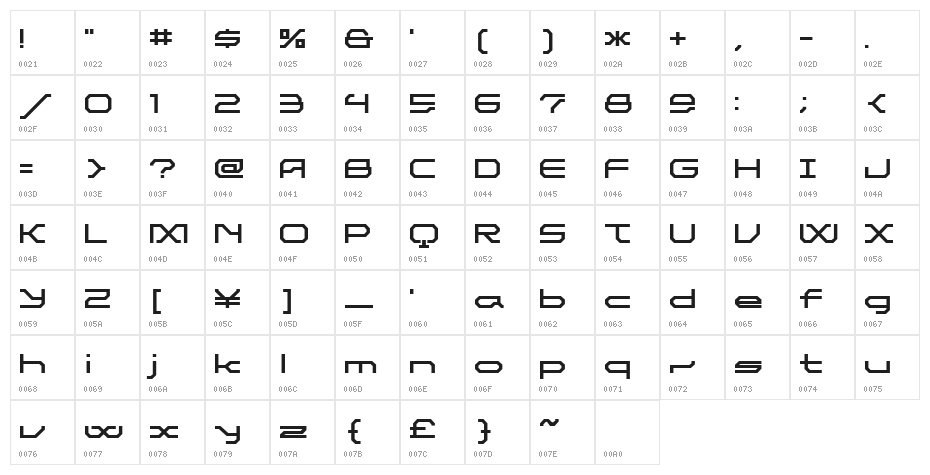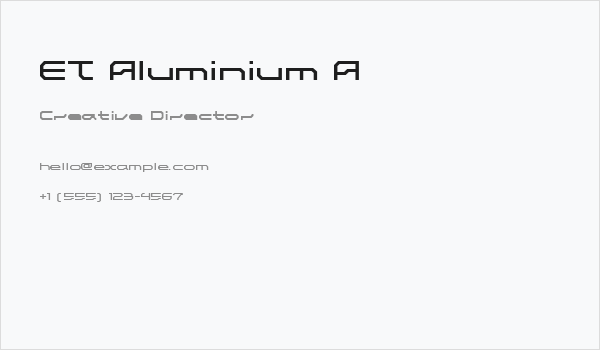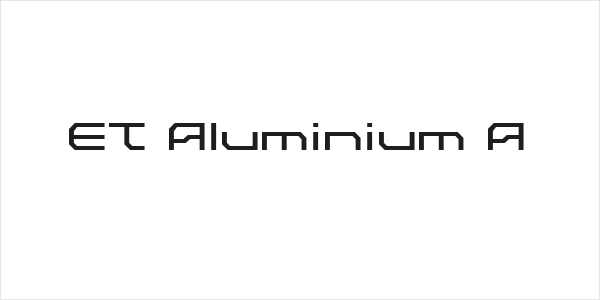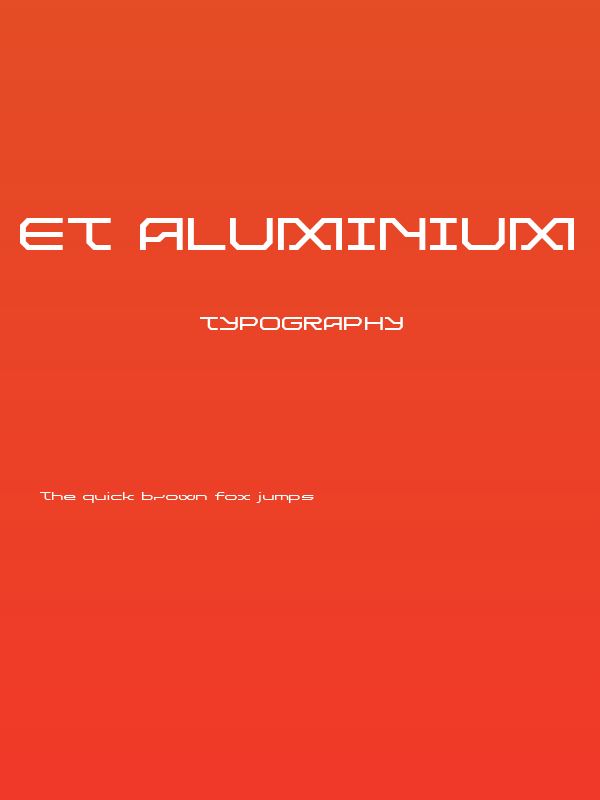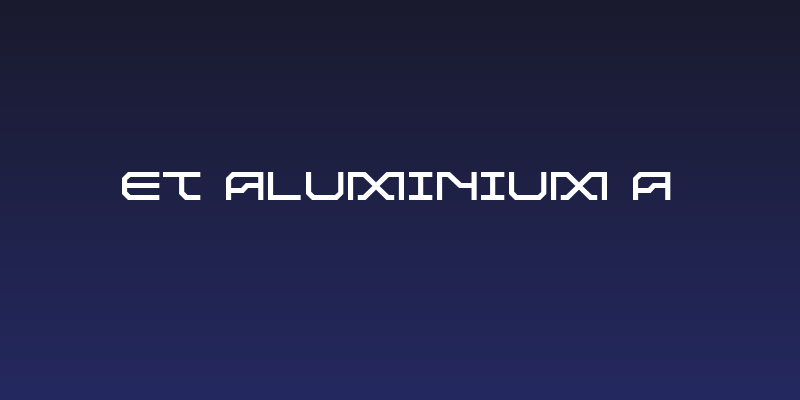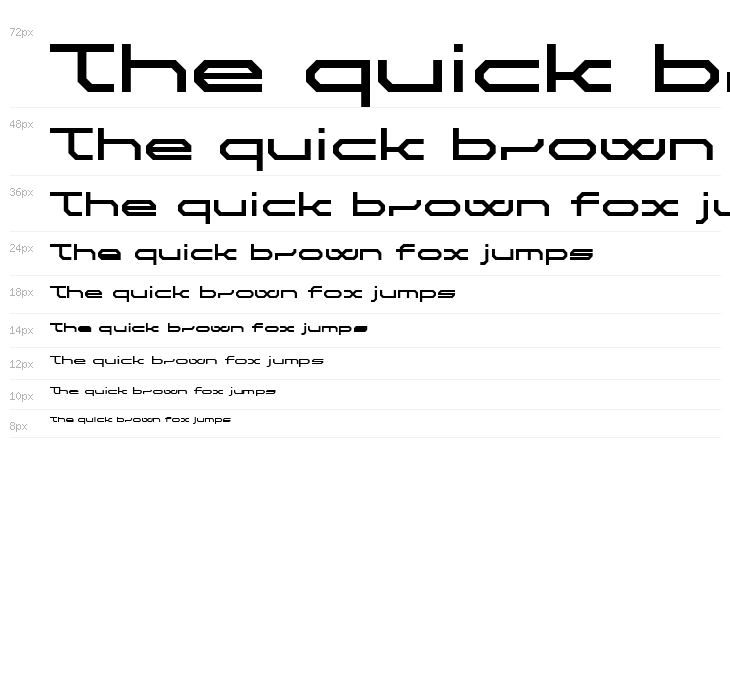
ET Aluminium A Font
ET Aluminium A Description
This font features a futuristic and geometric design, characterized by its angular and sharp edges. The uppercase letters are bold and structured, giving a sense of strength and modernity. The lowercase letters maintain the geometric theme but with a slightly softer touch, providing balance. Numbers and special characters are consistent with the overall style, ensuring uniformity across all glyphs. The font's design is reminiscent of digital or technological themes, making it suitable for projects that require a modern and edgy look.
| Proposed Projects | Ideal for technology branding, digital interfaces, video game titles, and sci-fi themed projects. |